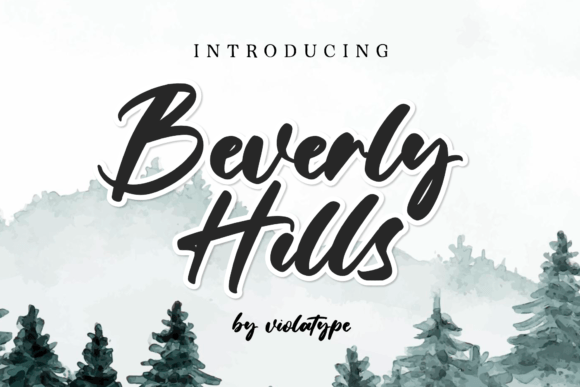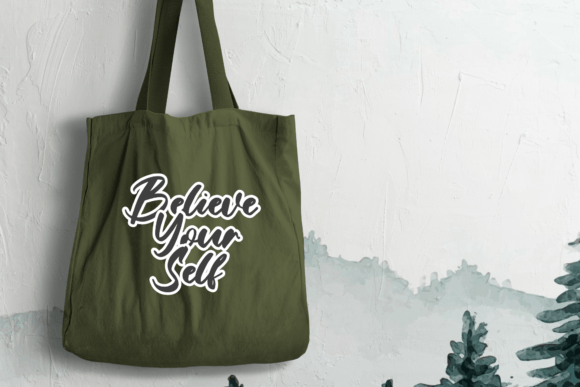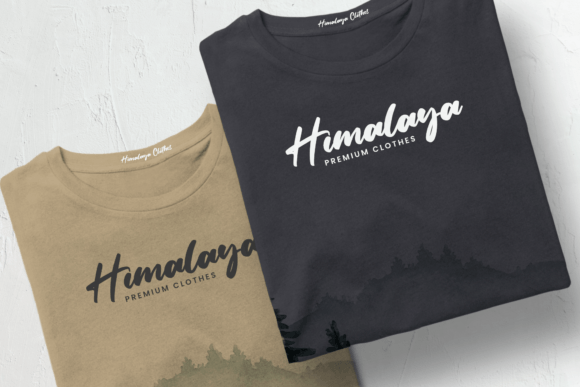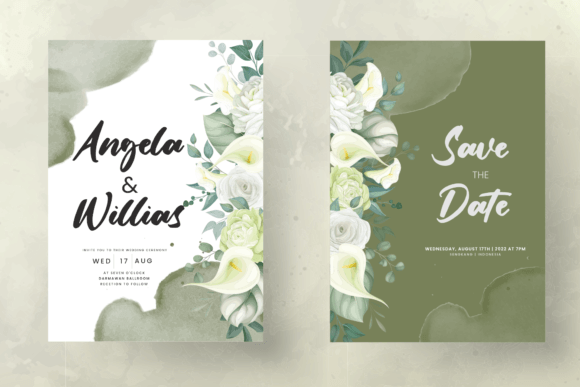
About Beverly Hills Font
Beverly Hills is a beautiful and charming handwritten font, made to beautify the designs you make, this font is unique and beautiful, you can see it from the shape and beautiful strokes.
Beverly Hills font is suitable for banner designs, logos, quotes, magazines, crafts, and more.